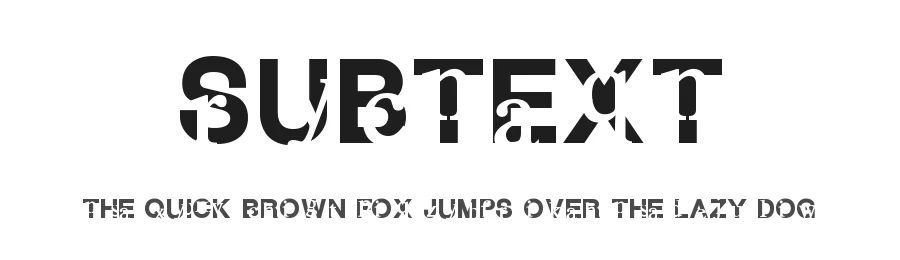
About Politician Font
Politician is a decorative font. It includes 107 glyphs, a regular weight, TTF (TrueType) format, and 107 languages. Politician is free to download; check the license details on this page before commercial use. Decorative fonts like Politician work best for logos, posters, packaging, and standout headlines.
Politician Font is a decorative font that shines as a display or heading face. Pair it with a clean sans-serif or serif font for body text β the contrast creates a clear hierarchy while the two styles stay balanced and easy to read.
Politician Font
Politician Font is a decorative typeface, ideal for logos, invitations, branding, and creative projects.